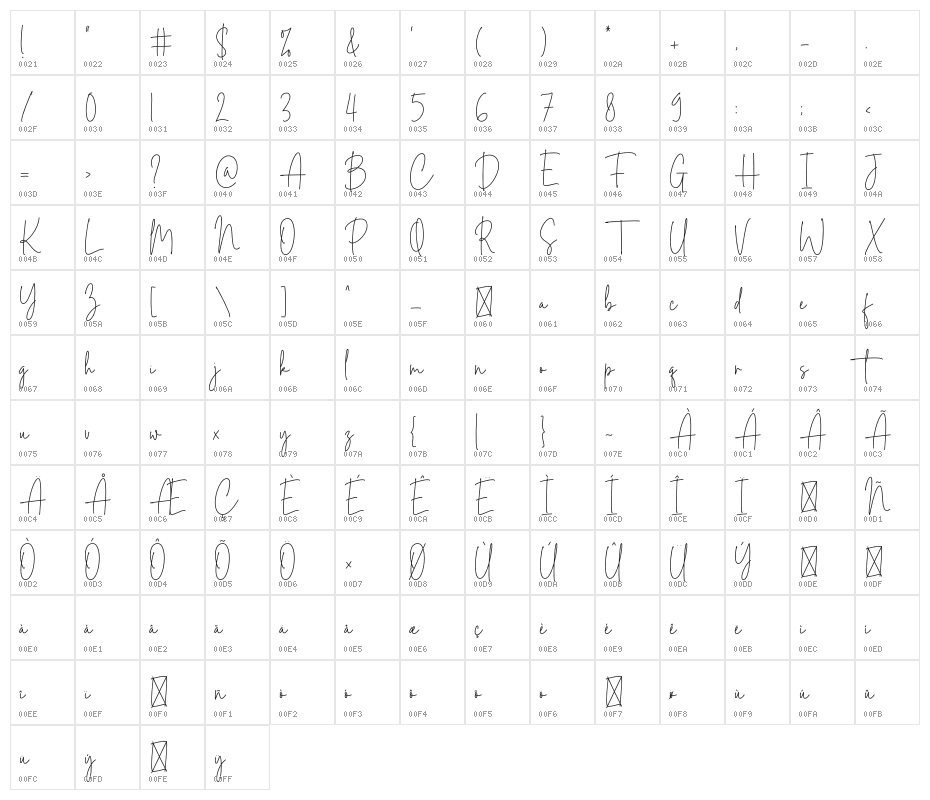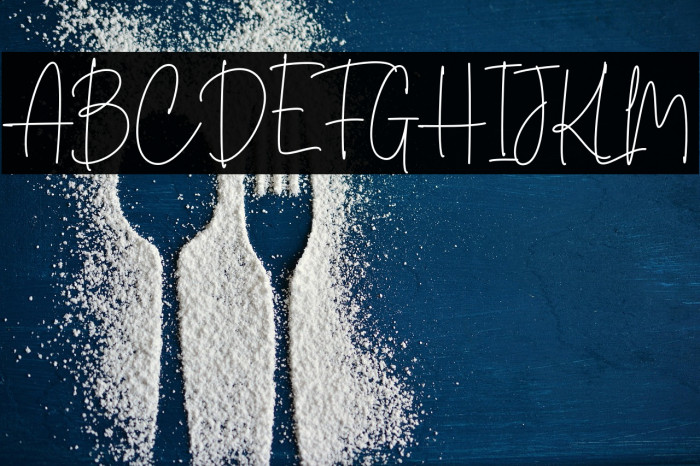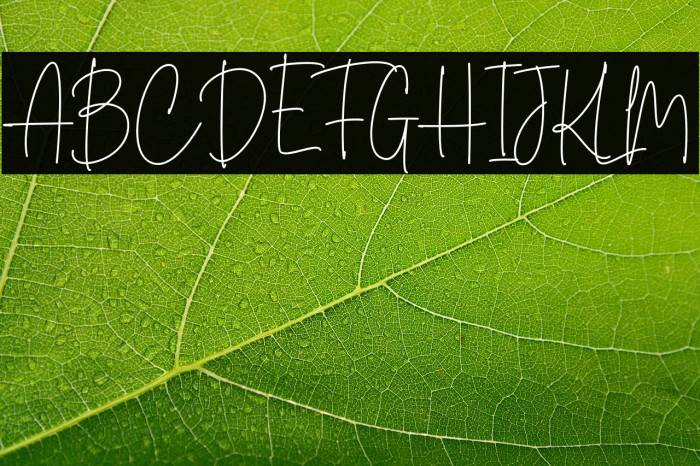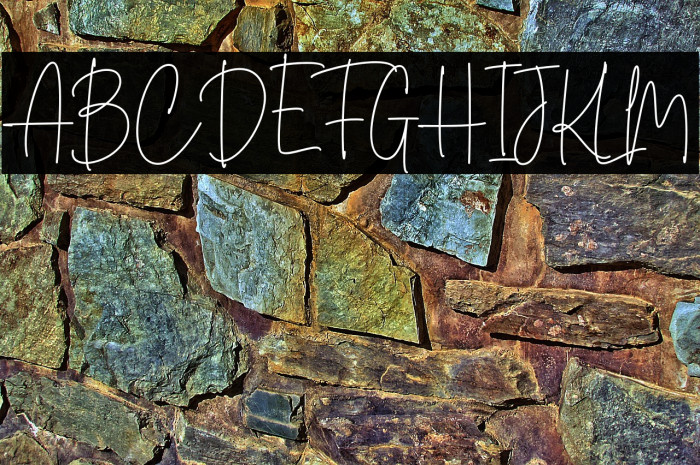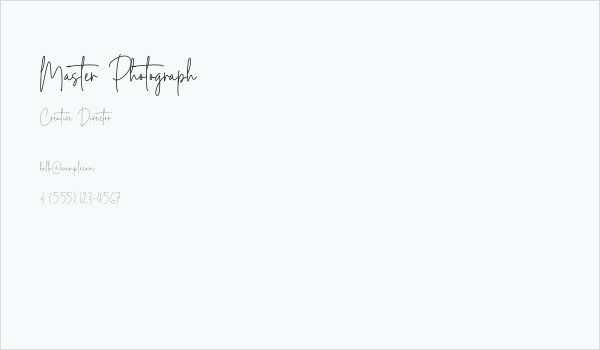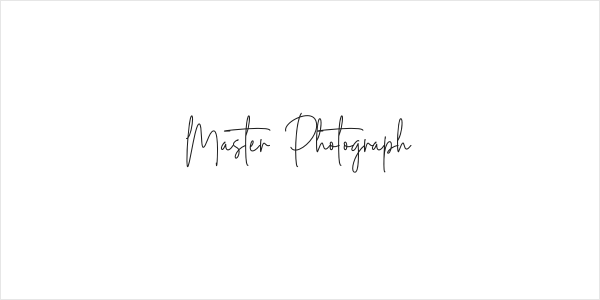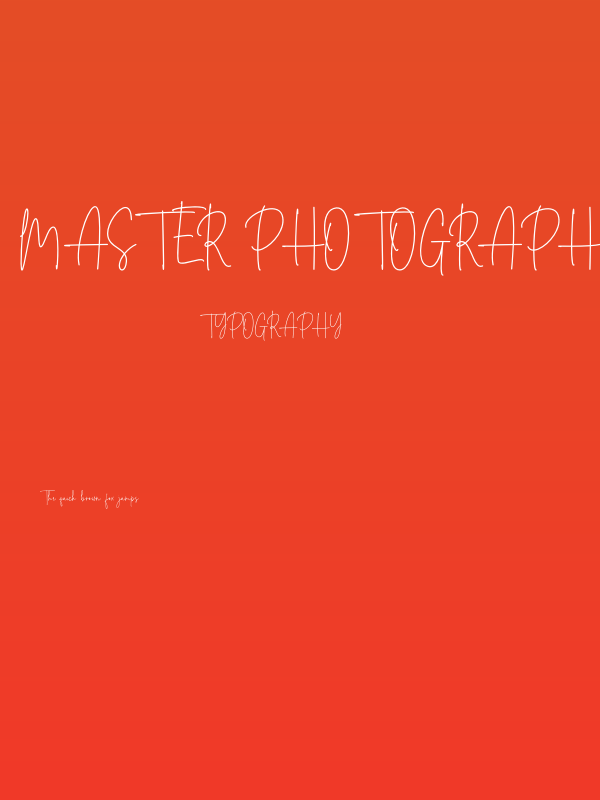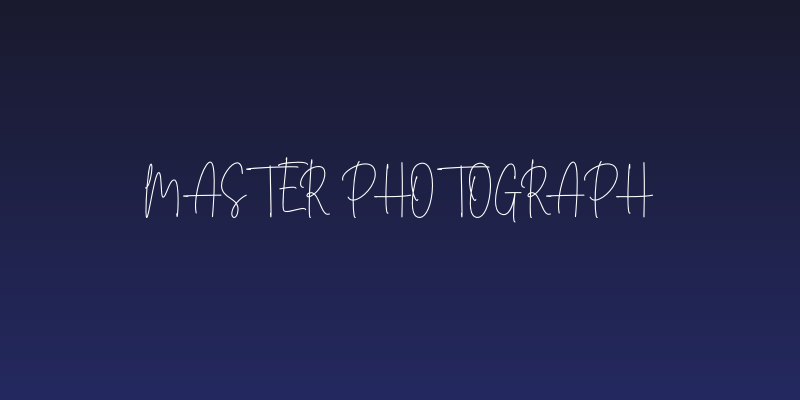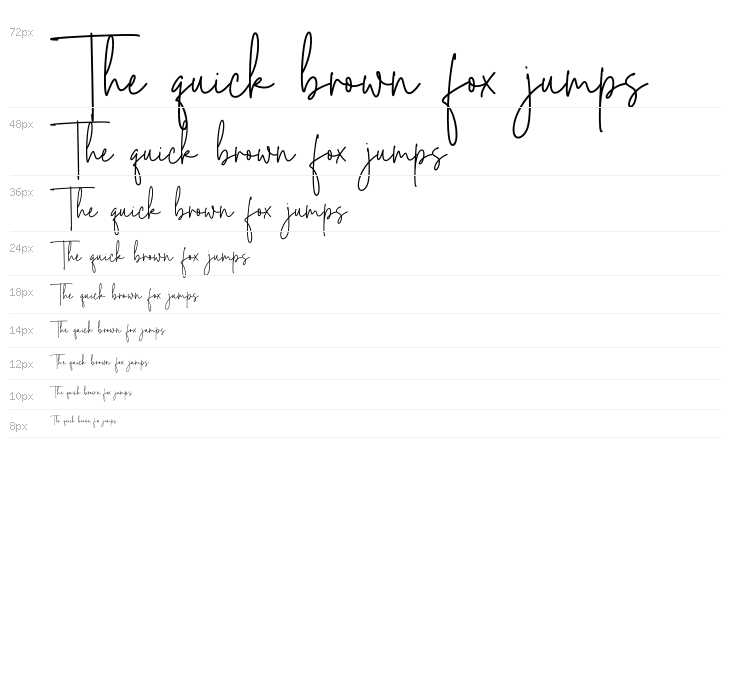
Master Photograph Font
Master Photograph Description
A handwritten, casual font with a playful and artistic style, featuring irregular strokes and a loose structure.
| Overall Style | Casual, Artistic |
| Use Case | Logos, Invitations, Personal projects |
| Proposed Projects | Greeting cards, invitations, personal branding. |